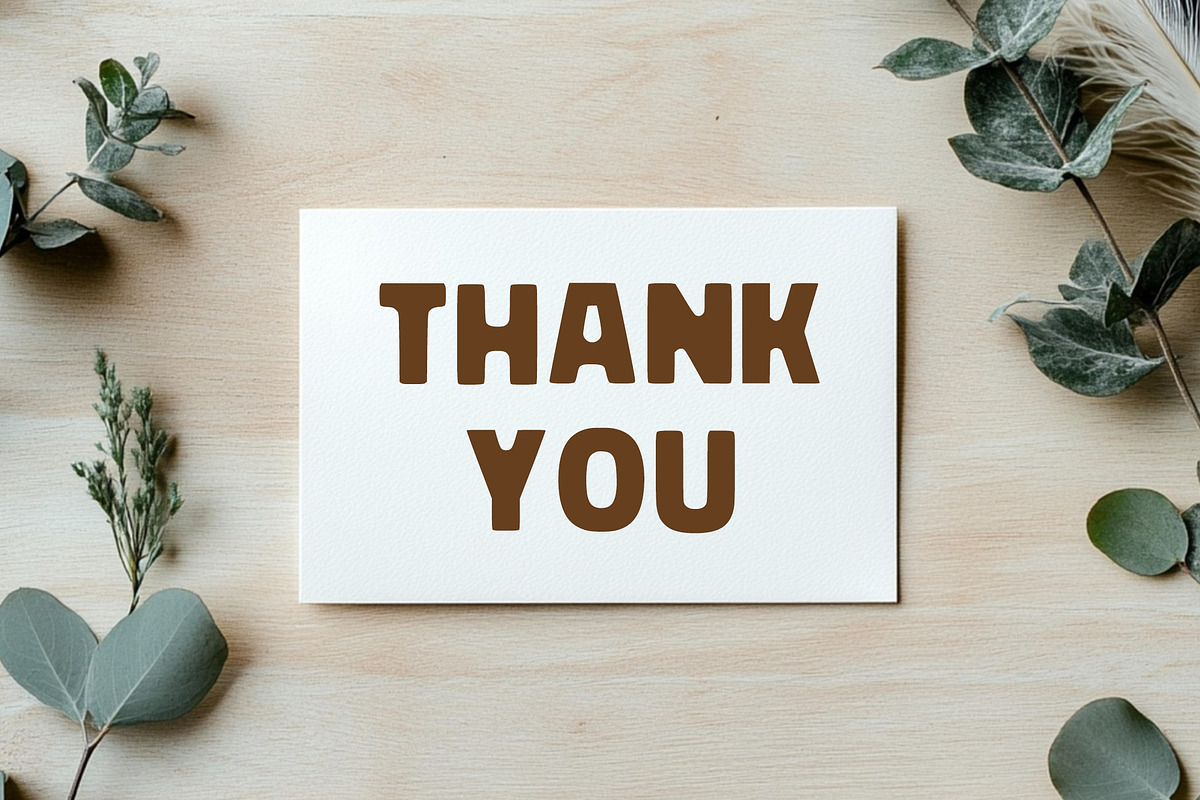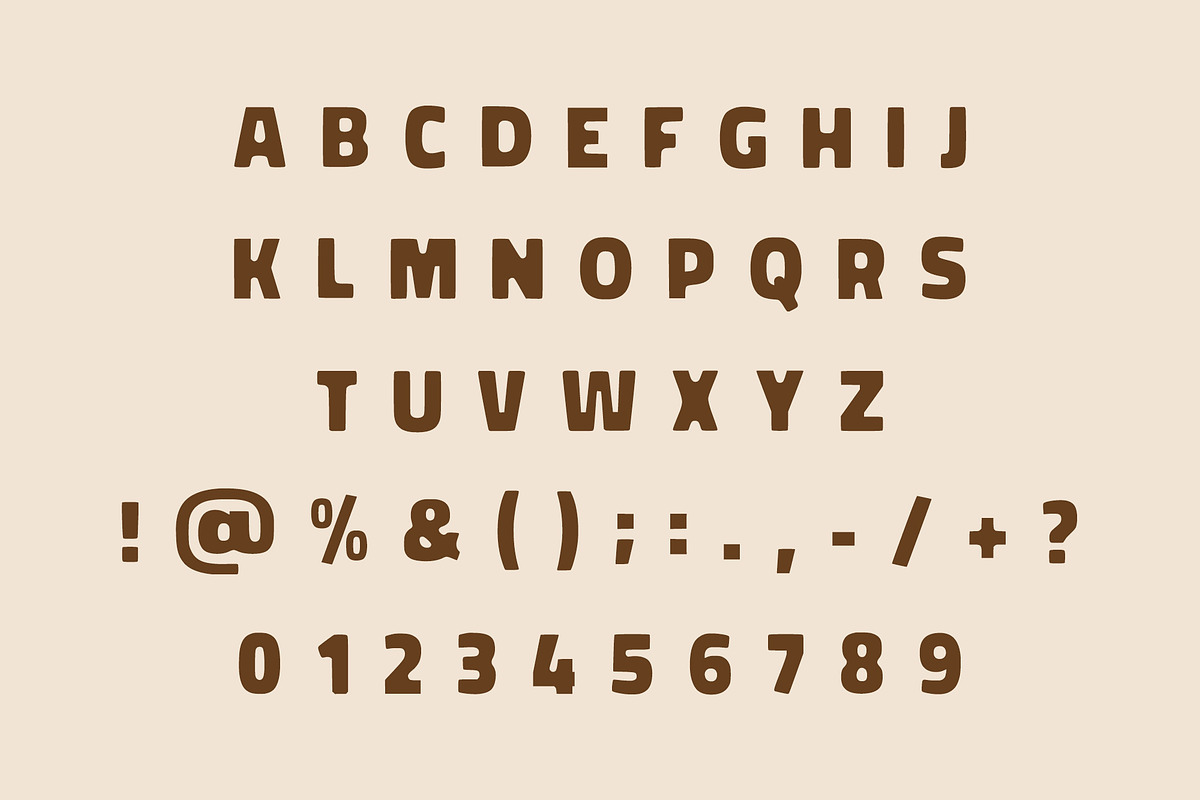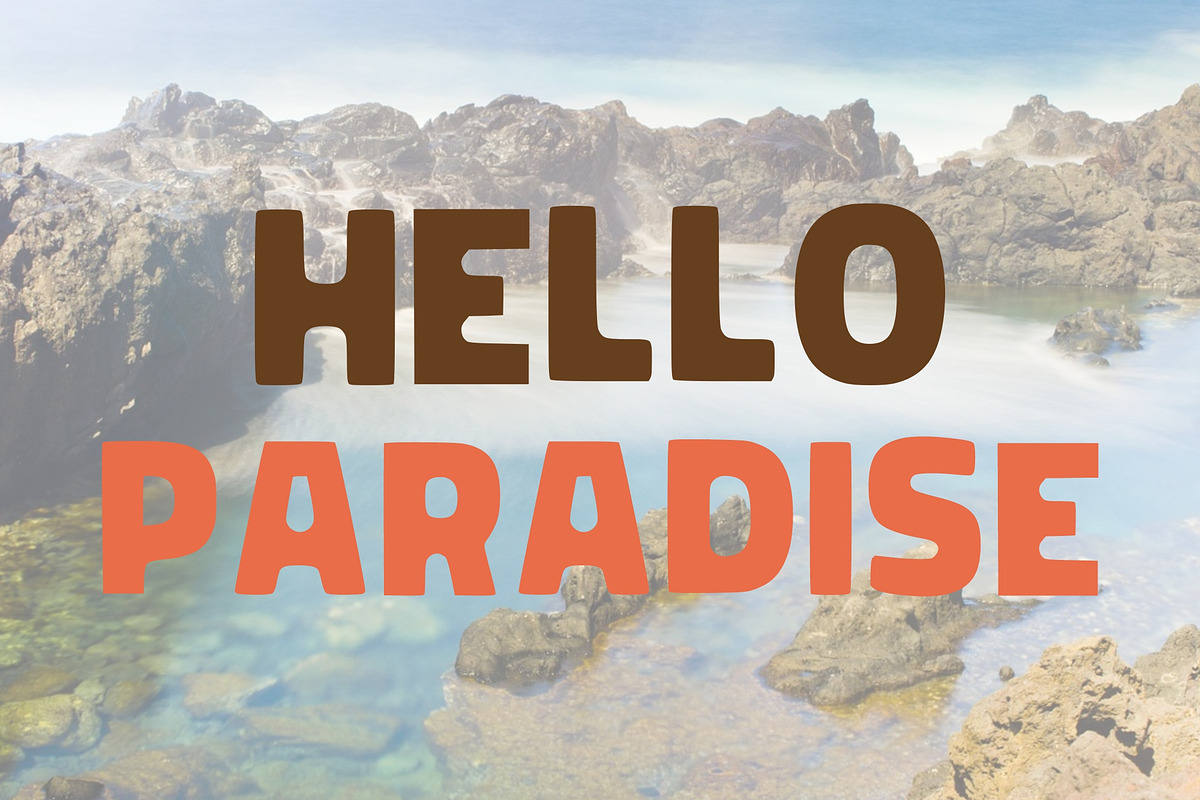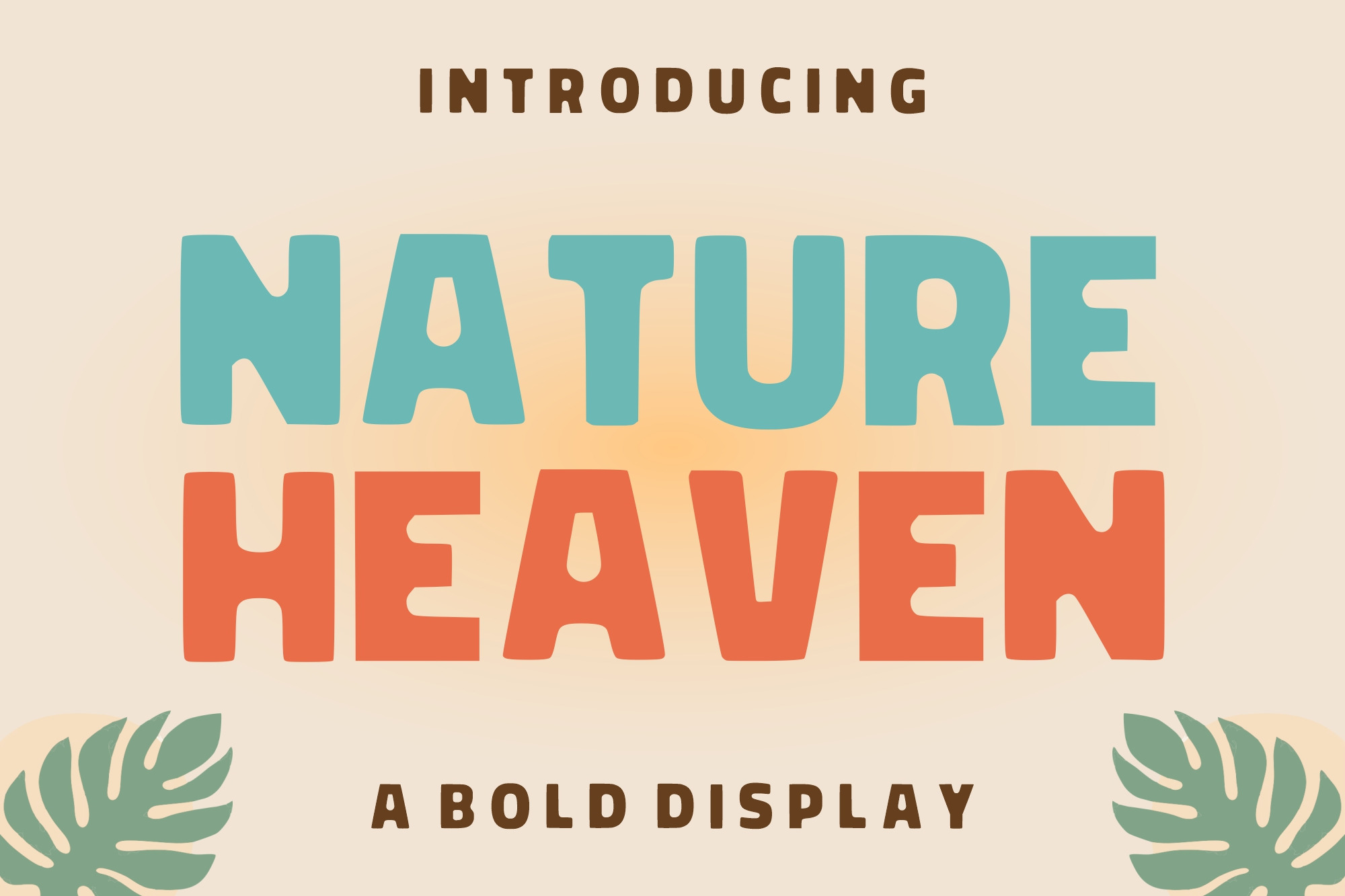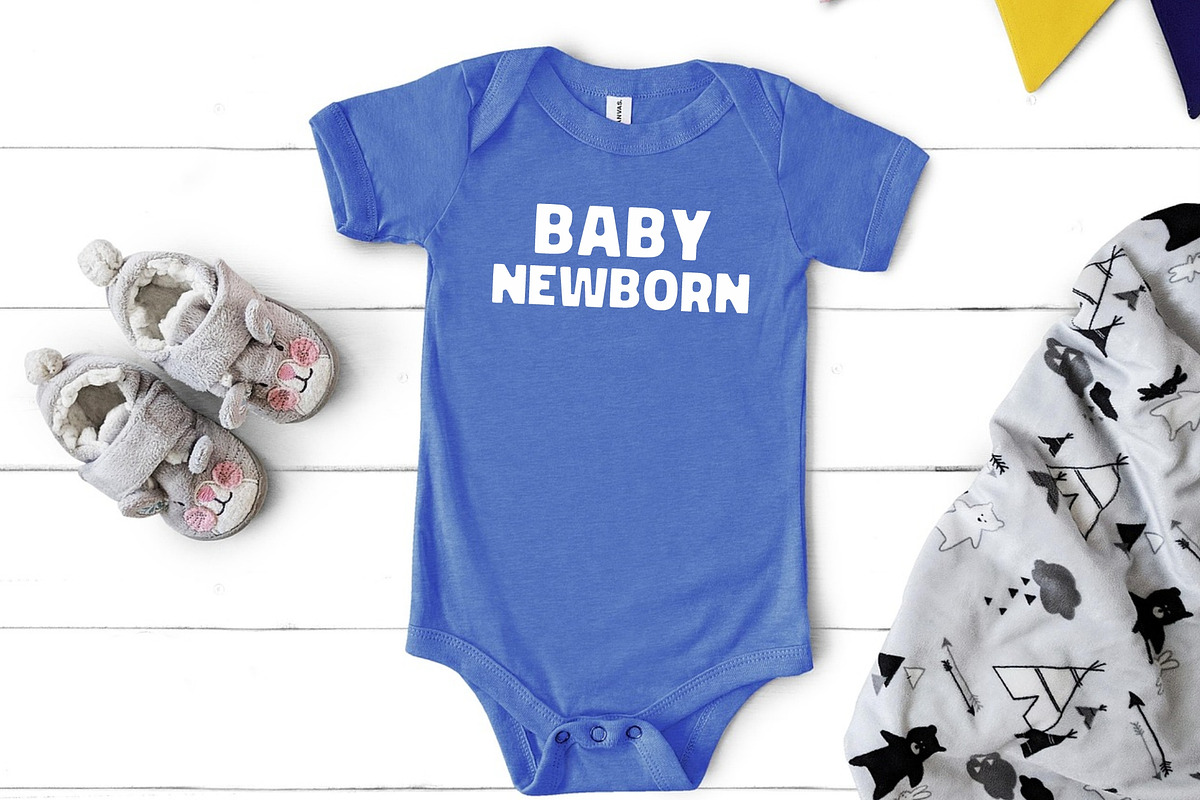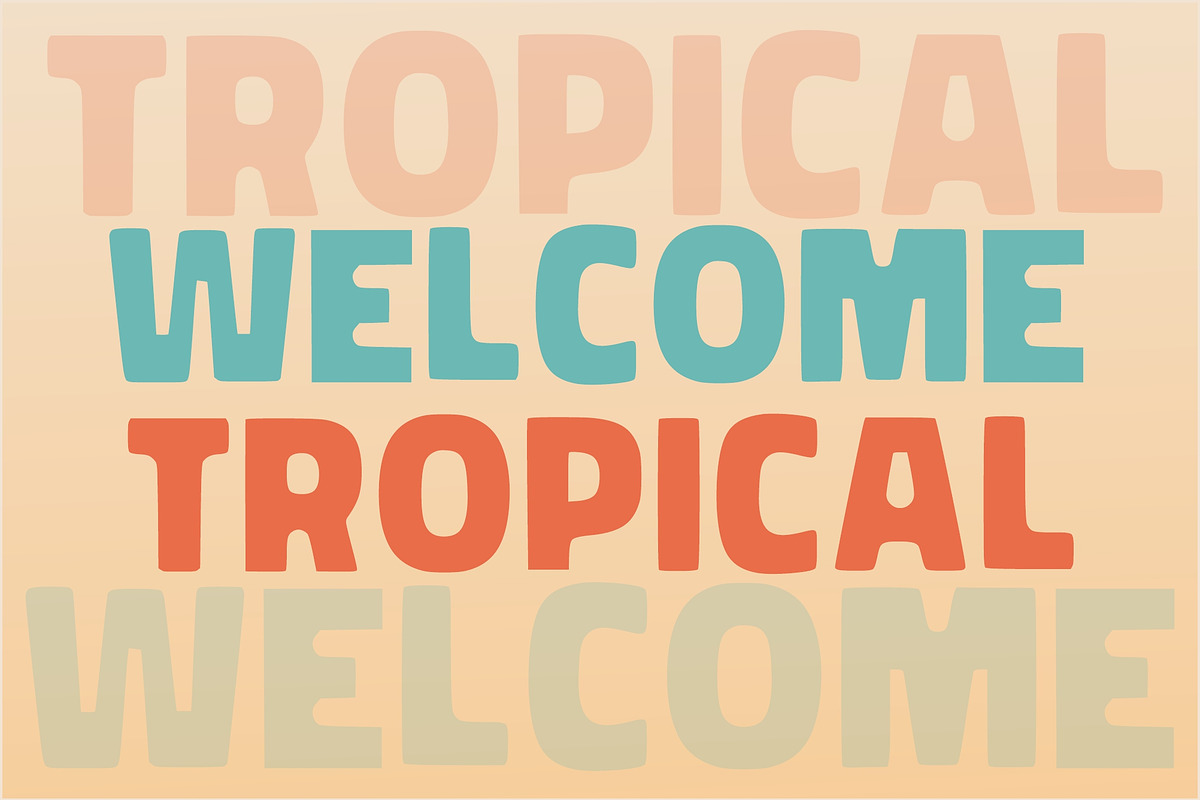
Nature Heaven - Bold Display Font
Nature Heaven Bold Display Font
Make a powerful statement with Nature Heaven font, a thick and friendly bold display typeface that radiates organic energy. This Nature Heaven typeface features soft, rounded edges and heavy weights, making it incredibly impactful for headlines, eco-friendly branding, and summer-themed posters. The Nature Heaven font is designed to be seen; its chunky letterforms provide a playful yet grounded feel that works perfectly for organic food packaging, tropical-themed events, and outdoor lifestyle brands.
Pair the Nature Heaven typeface with leafy graphics or earthy color palettes to fully embrace its natural vibe. Whether you’re creating a logo for a sustainable startup or a bold header for a travel blog, this font ensures your message is loud, clear, and full of life. It’s the perfect choice for high-visibility designs that need a touch of warmth and approachability.